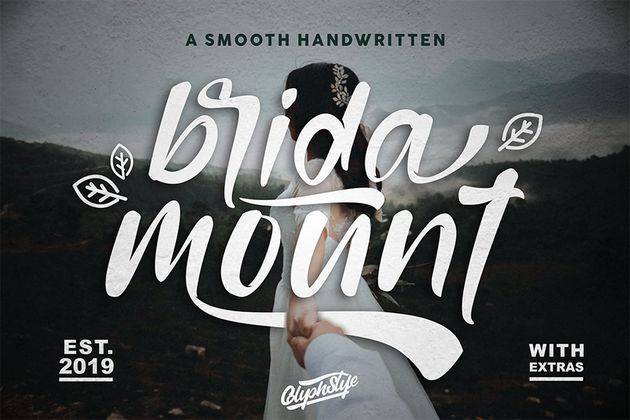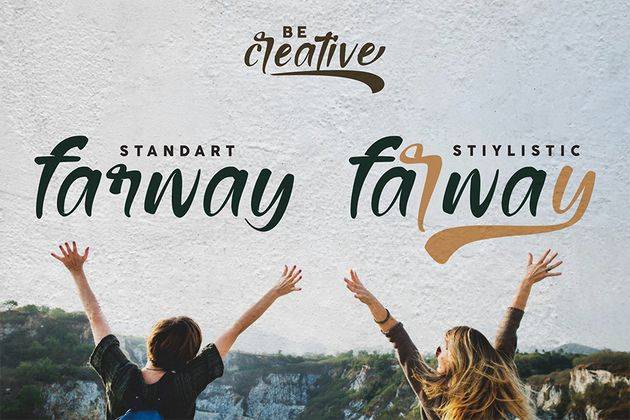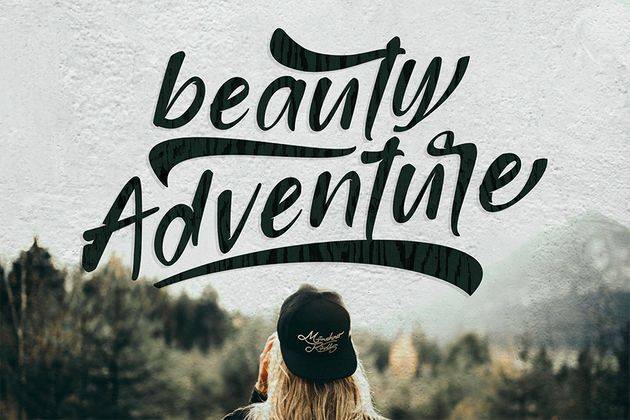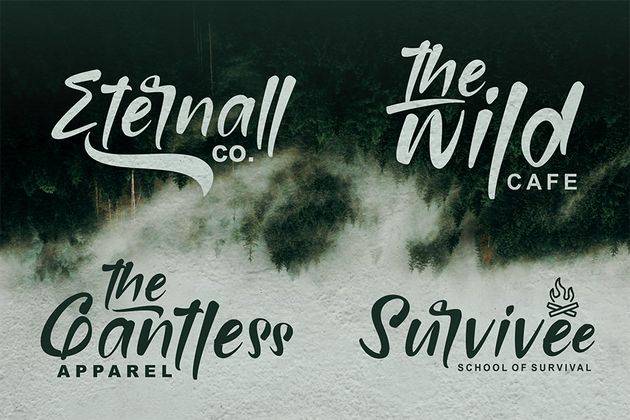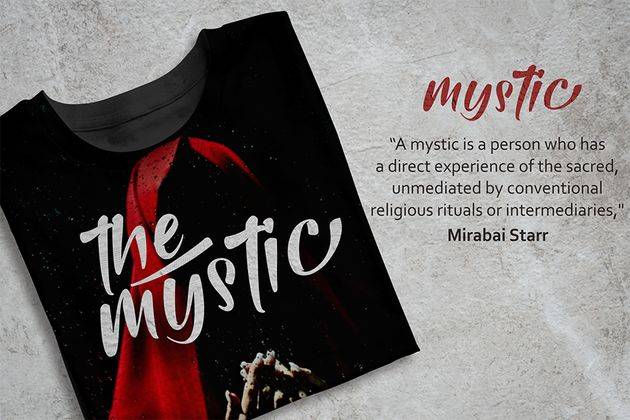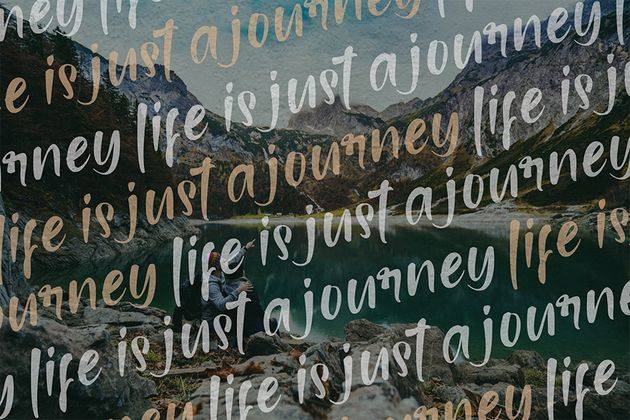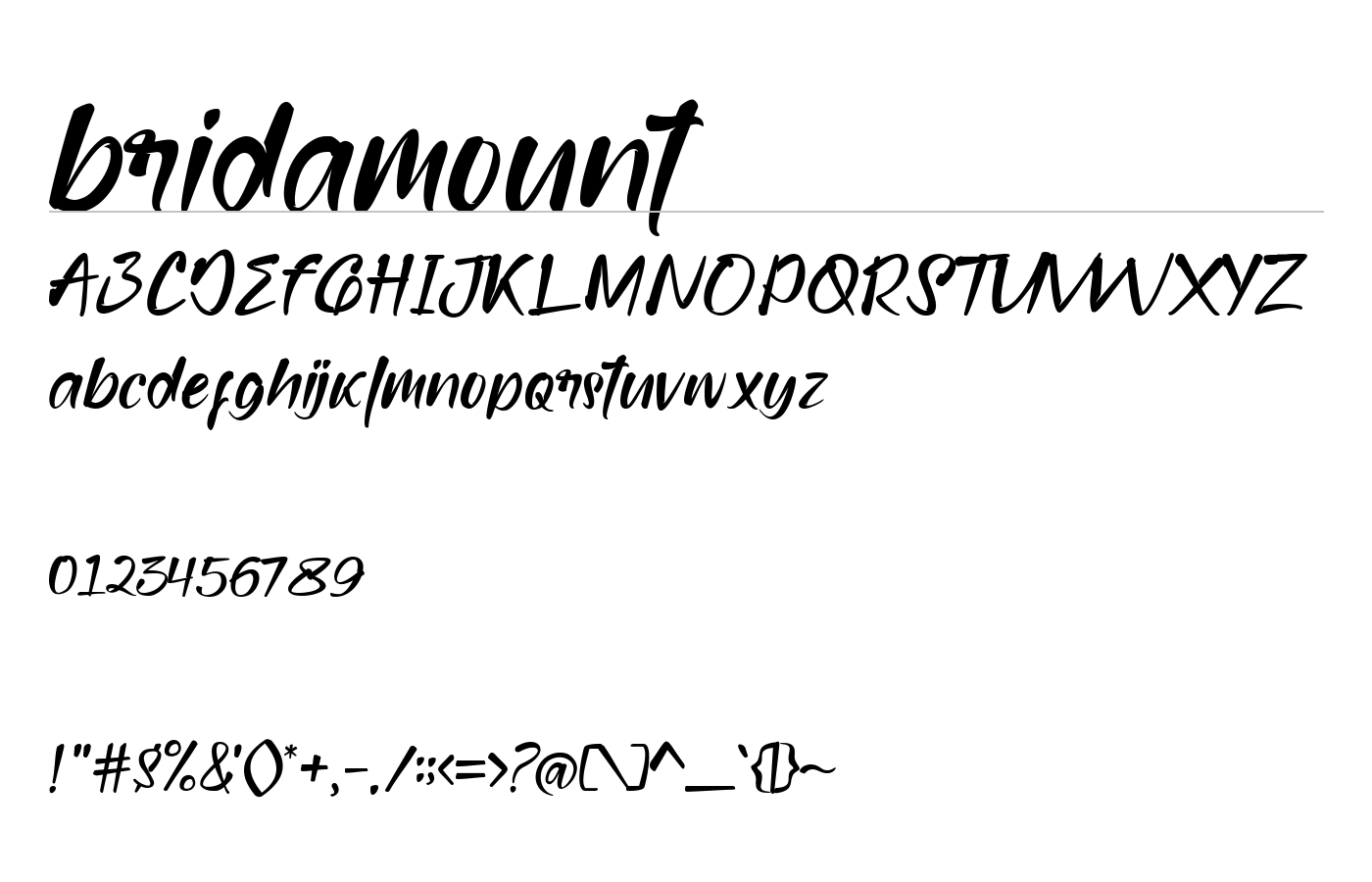
Bridamount Script Demo is a lively and expressive handwritten script font that features a medium weight with smooth, flowing strokes and moderate contrast. Its tall x-height and slightly condensed forms combined with casual yet elegant letter shapes make it perfect for adding a personal, creative touch to branding, invitations, and stylish headlines. This font works well wherever a warm, inviting, and artistic feel is desired.
Bridamount Script Demo
About Bridamount Script Demo
| Font family | Bridamount Script Demo |
| Designer | GlyphStyle |